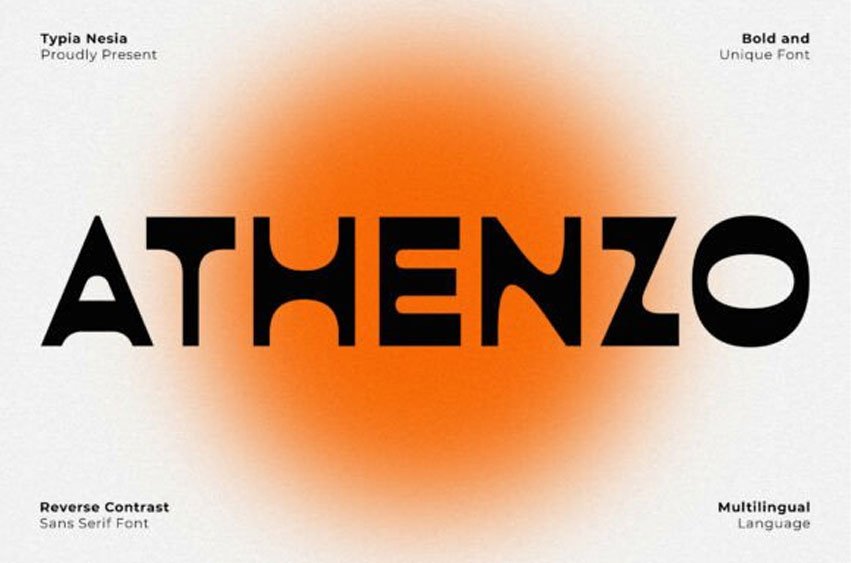
Altenzo Font is a bold, modern, and high-impact display sans-serif font designed to grab attention.
Its unique reverse contrast structure—where the horizontal strokes are thicker than the vertical ones—gives it a distinctive, rebellious aesthetic.
The strong, geometric letterforms and unconventional cuts make it the ideal choice for future-forward, aggressive, and edgy branding. Perfect for headlines, posters, logos, fashion labels, and any project aiming for a unique and contemporary statement.